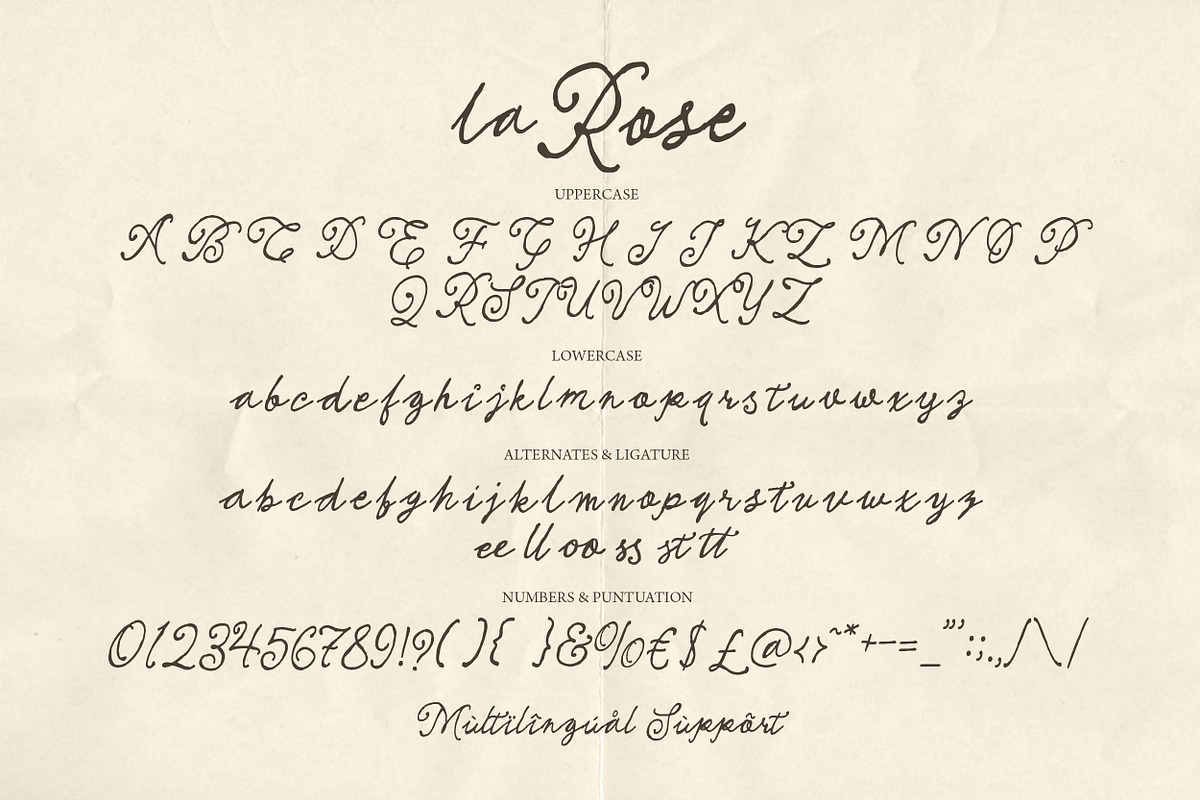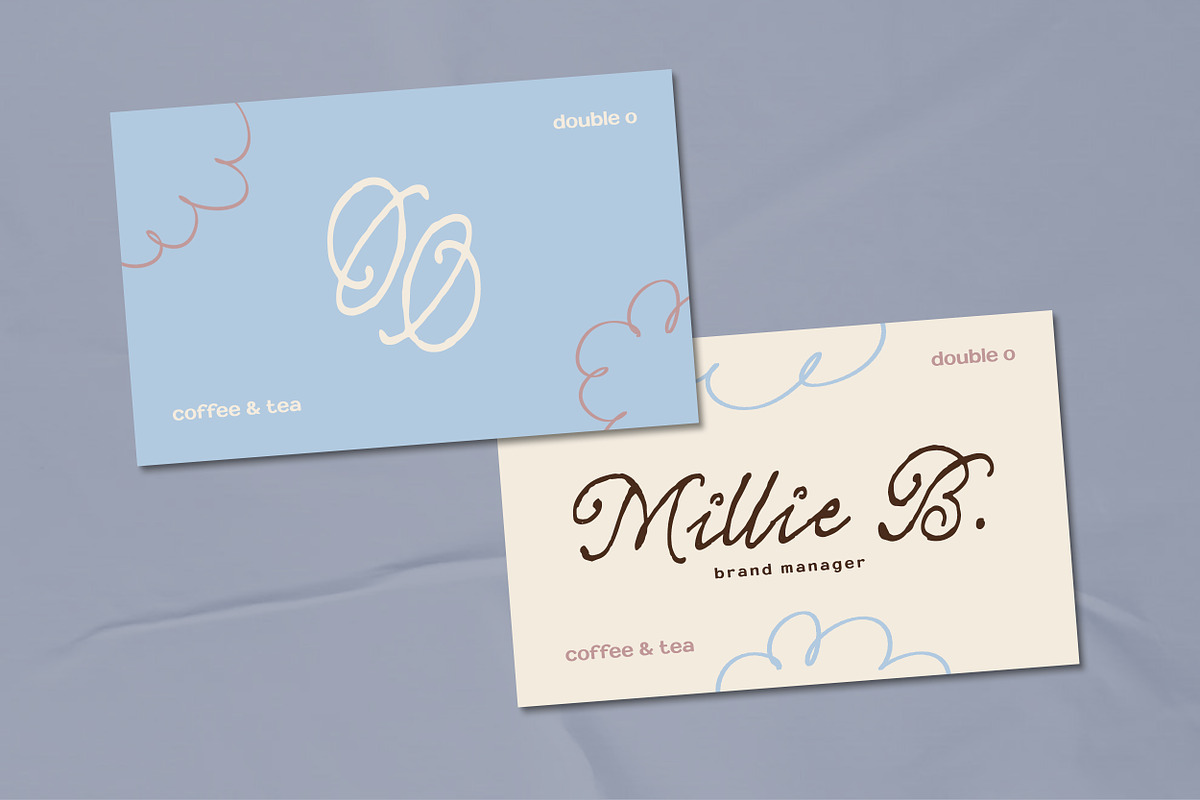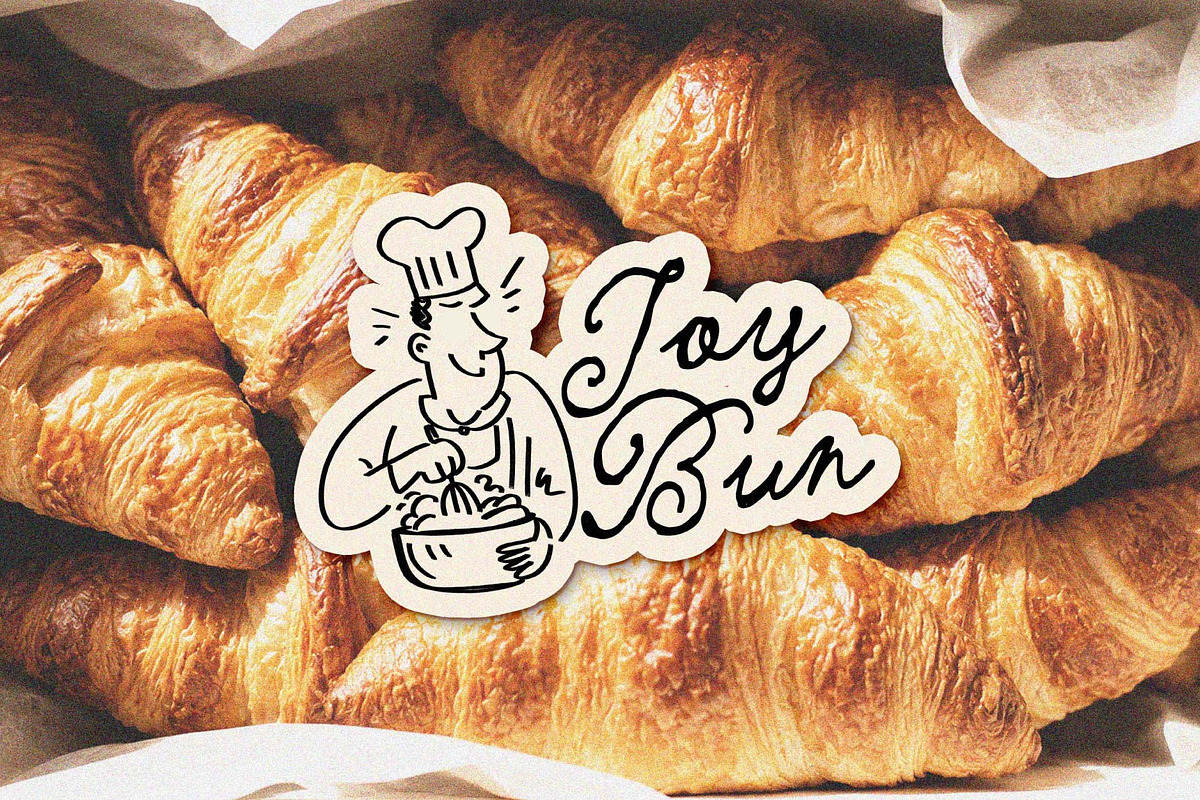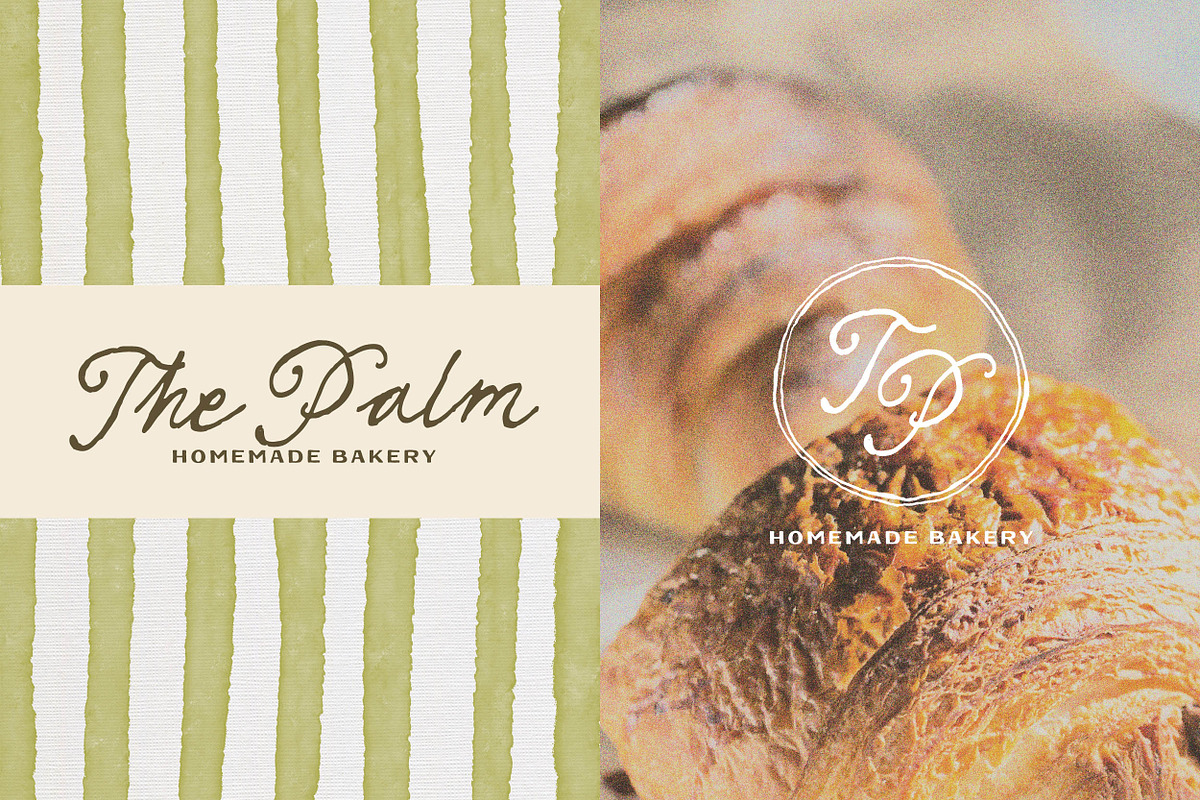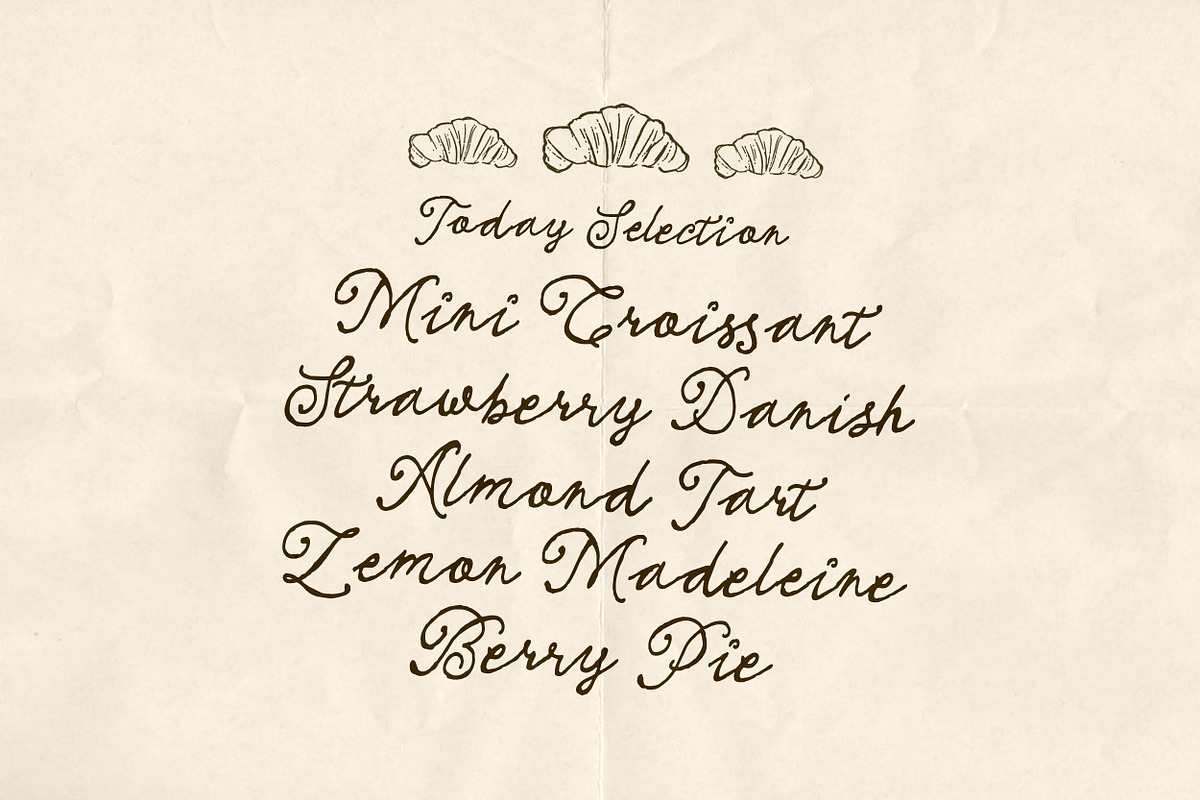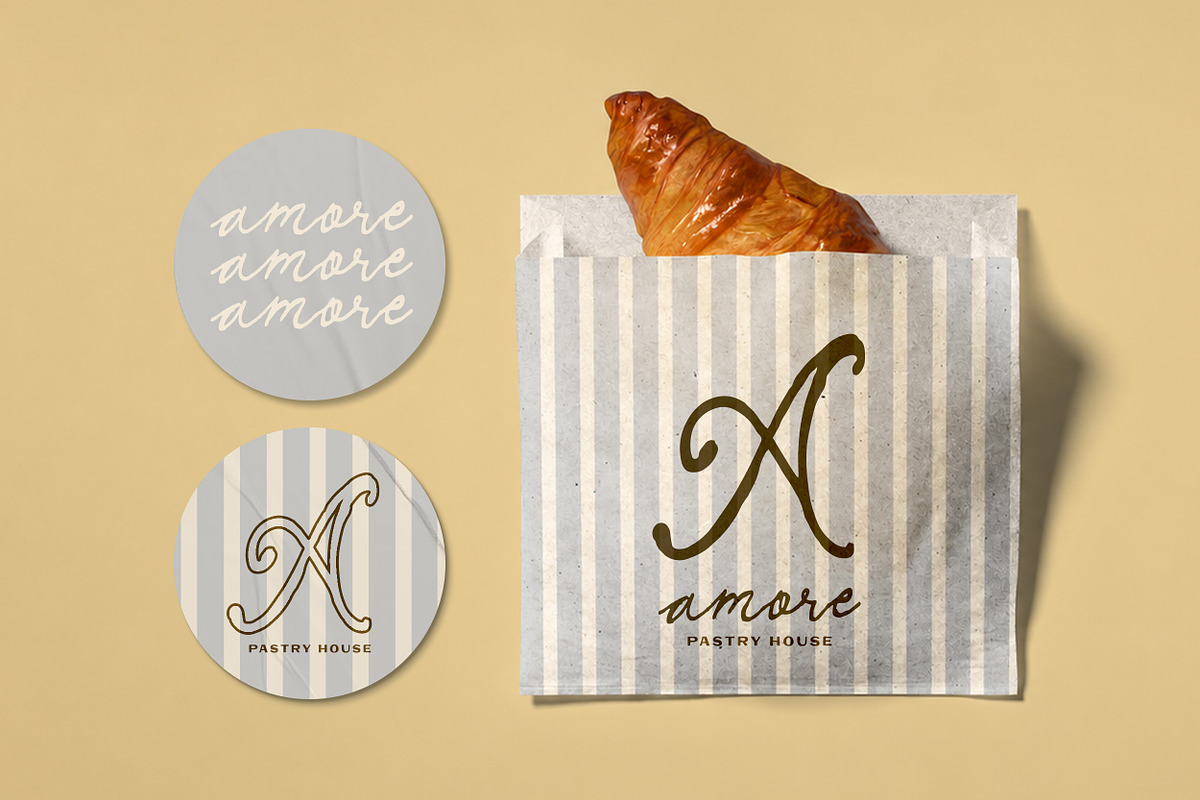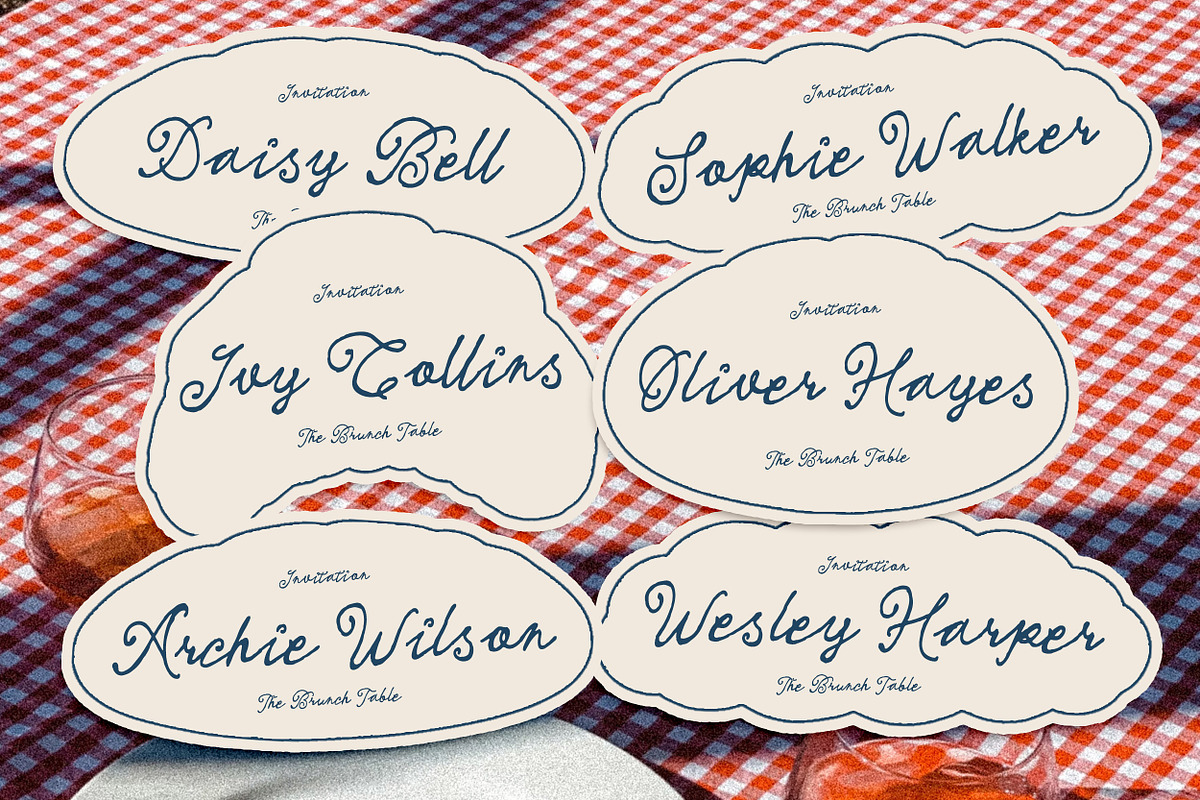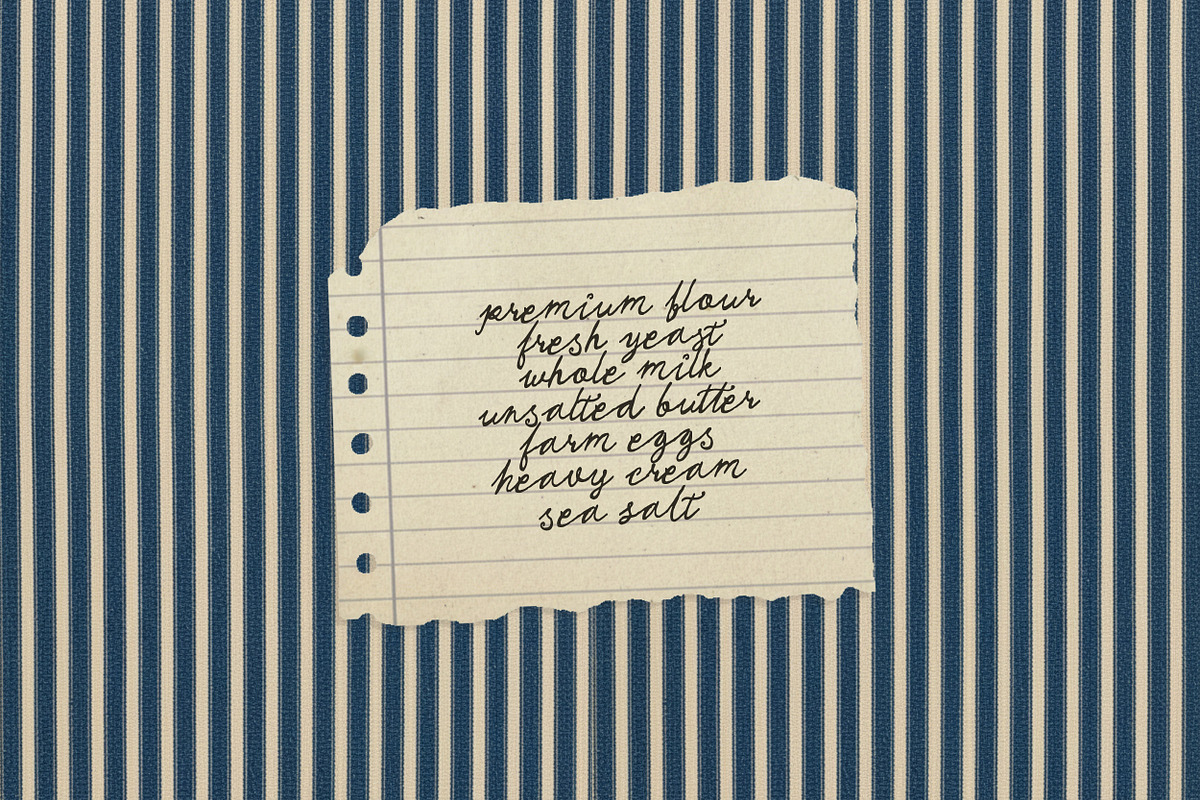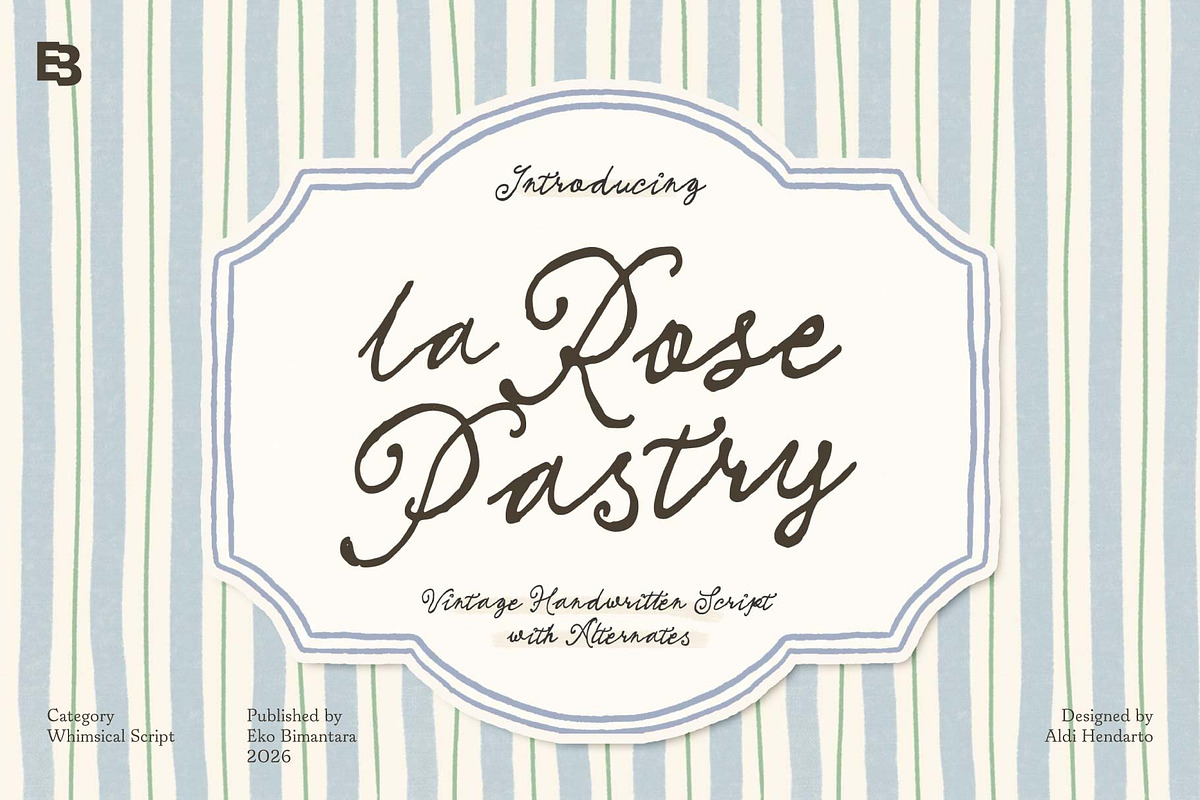
La Rose Pastry
La Rose Pastry is a graceful handwritten script inspired by the charm of vintage pâtisseries, romantic café signage, and timeless French packaging. With its flowing curves, delicate swashes, and naturally elegant rhythm, this typeface brings a warm handcrafted personality to every design while maintaining a refined professional feel. Perfect for bakery branding, café menus, product packaging, vintage stationery, editorial layouts, and feminine lifestyle projects, La Rose Pastry creates an inviting atmosphere filled with softness, nostalgia, and artisanal sophistication.